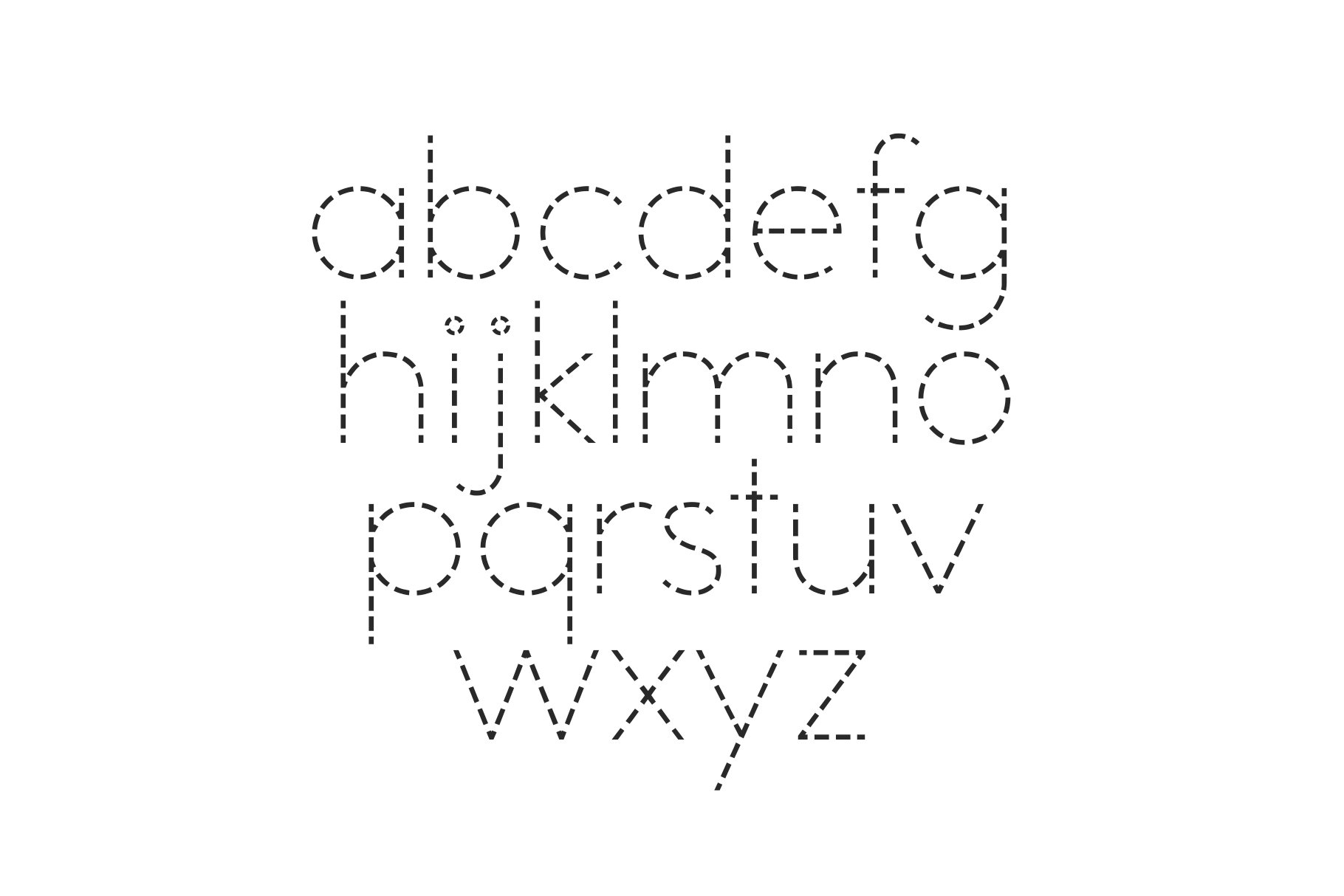
Finding the perfect font can elevate your design projects significantly. Whether you’re creating invitations, posters, or digital graphics, the right font sets the tone and enhances visual appeal. Tracing fonts are especially popular for their playful and artistic flair.
Another great resource is design communities where artists share their creations. Many talented designers offer their tracing fonts for free download, allowing you to explore new styles while supporting independent creators. This fosters creativity and collaboration.
Don’t forget to experiment with different tracing fonts in your projects. Mixing and matching can lead to exciting results, making your designs stand out. Play around with sizes and colors to find the perfect combination that resonates with your audience.
Incorporating free tracing fonts into your designs can be both fun and rewarding. With so many options available, you’re sure to find the perfect font that enhances your creative vision and brings your ideas to life.